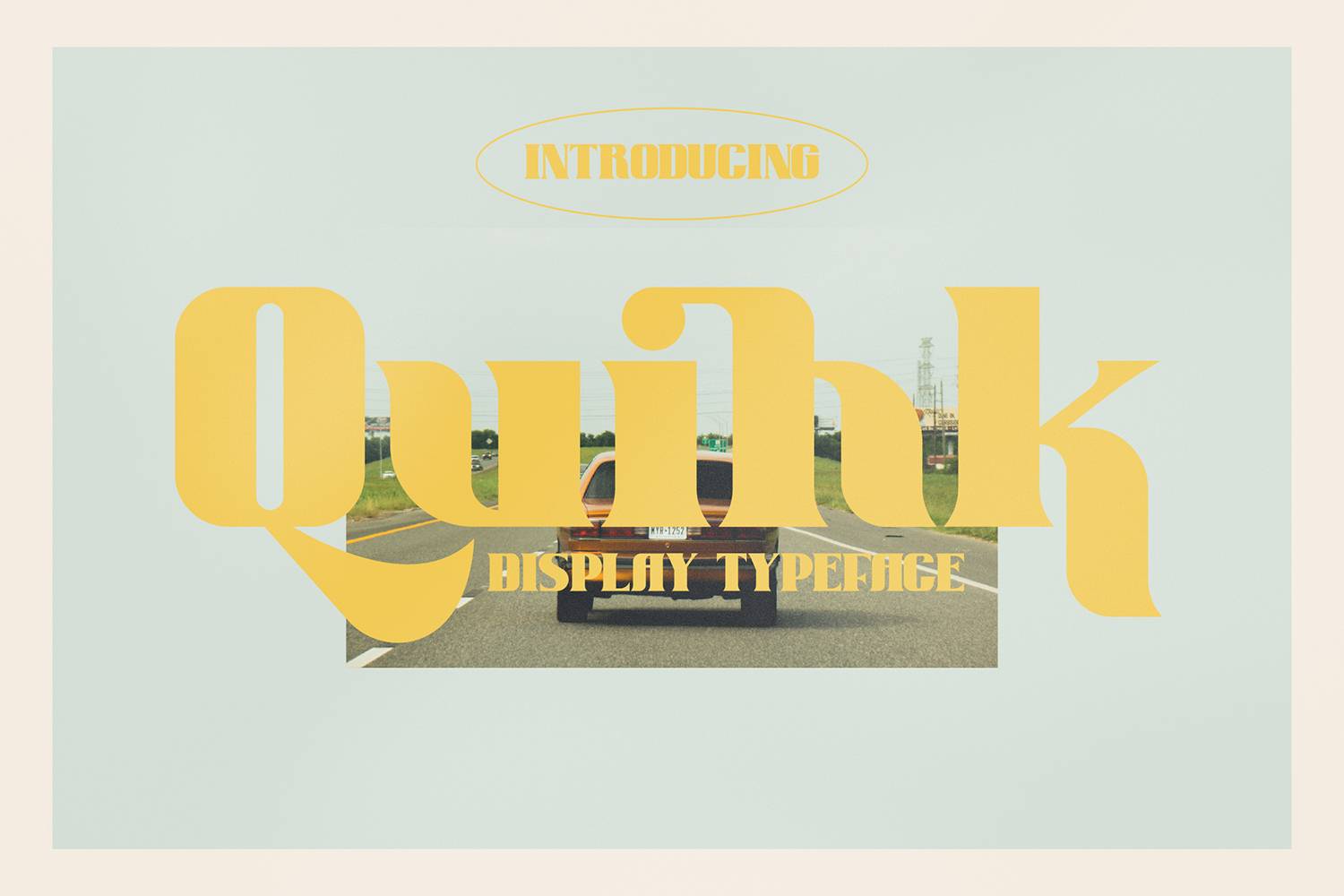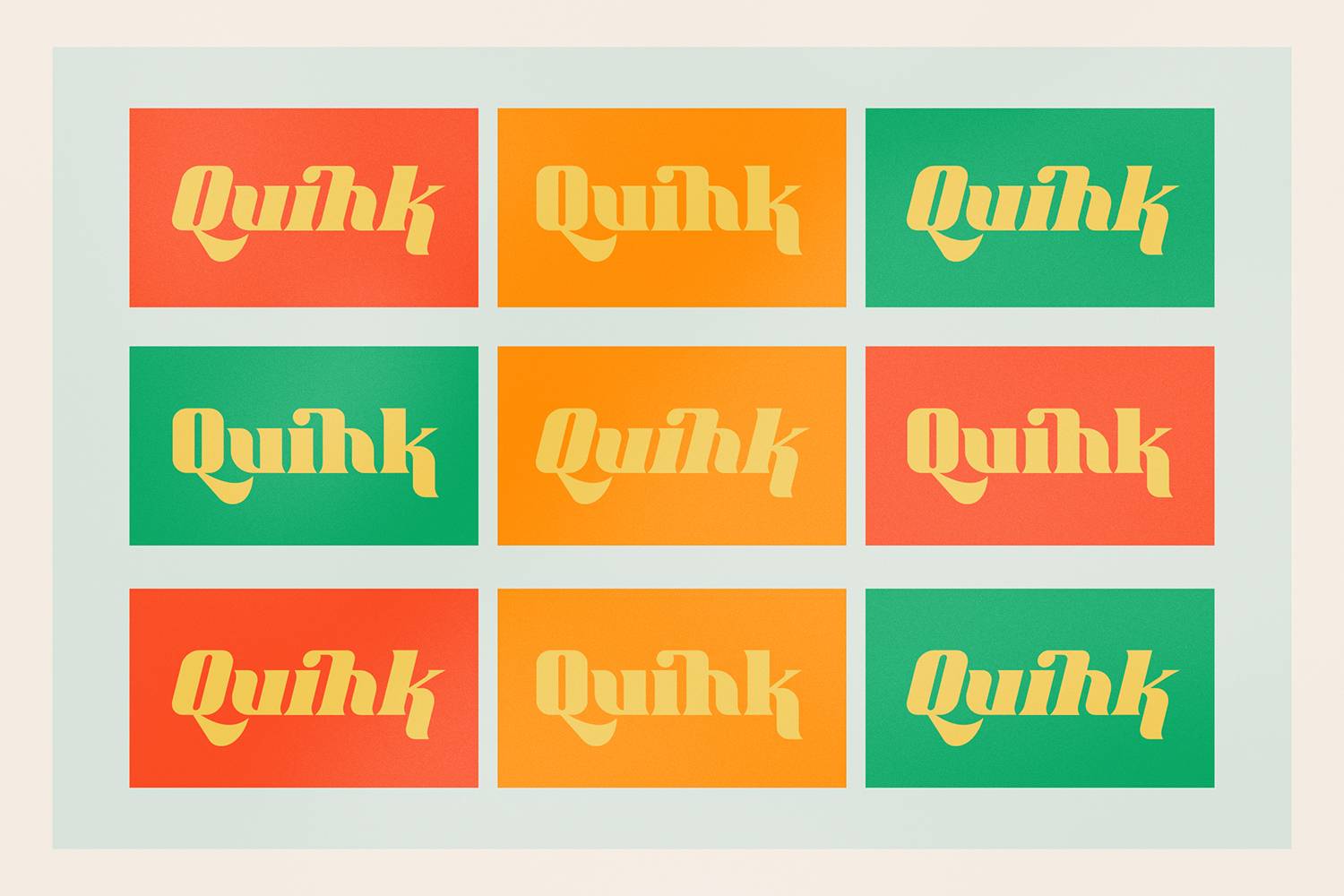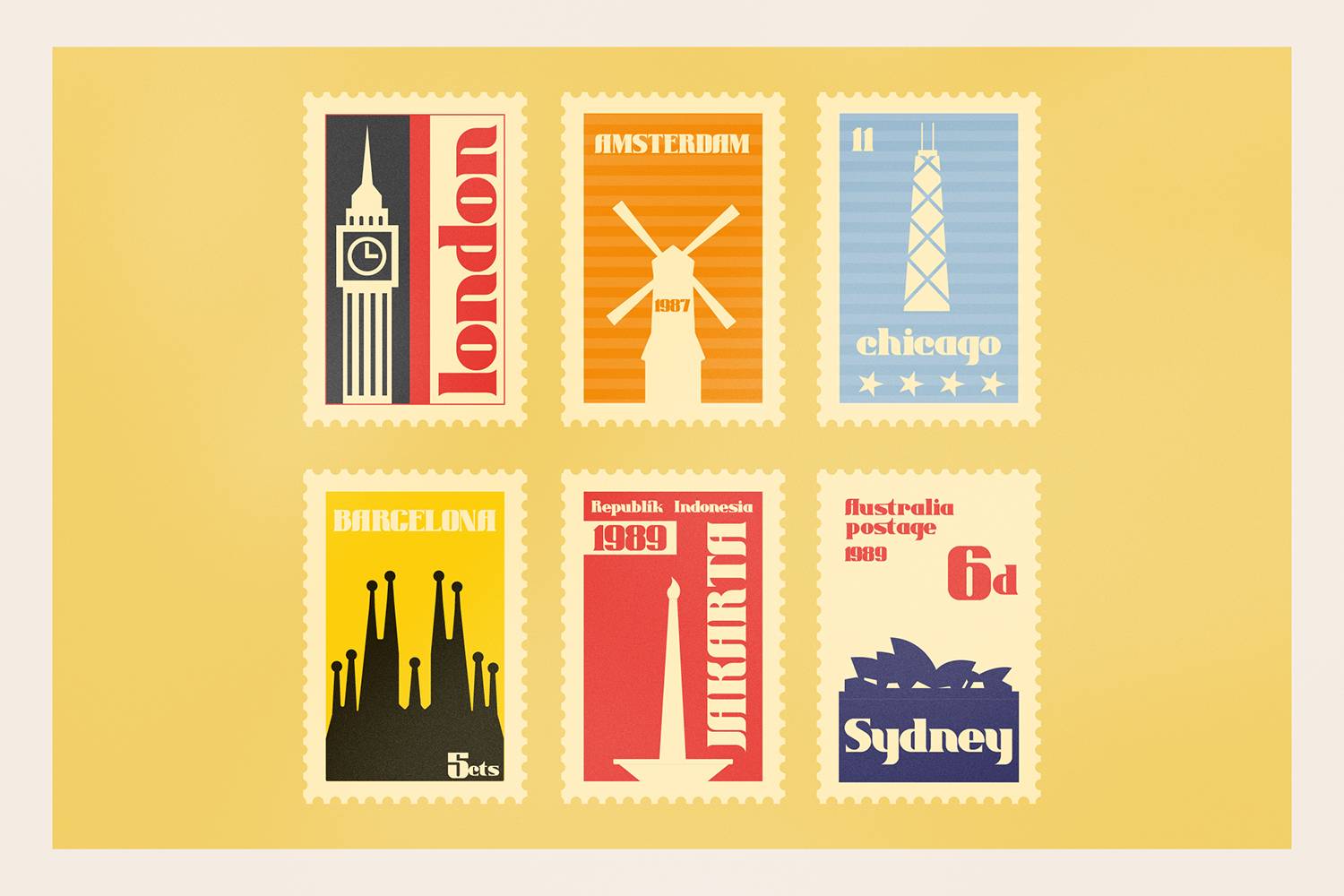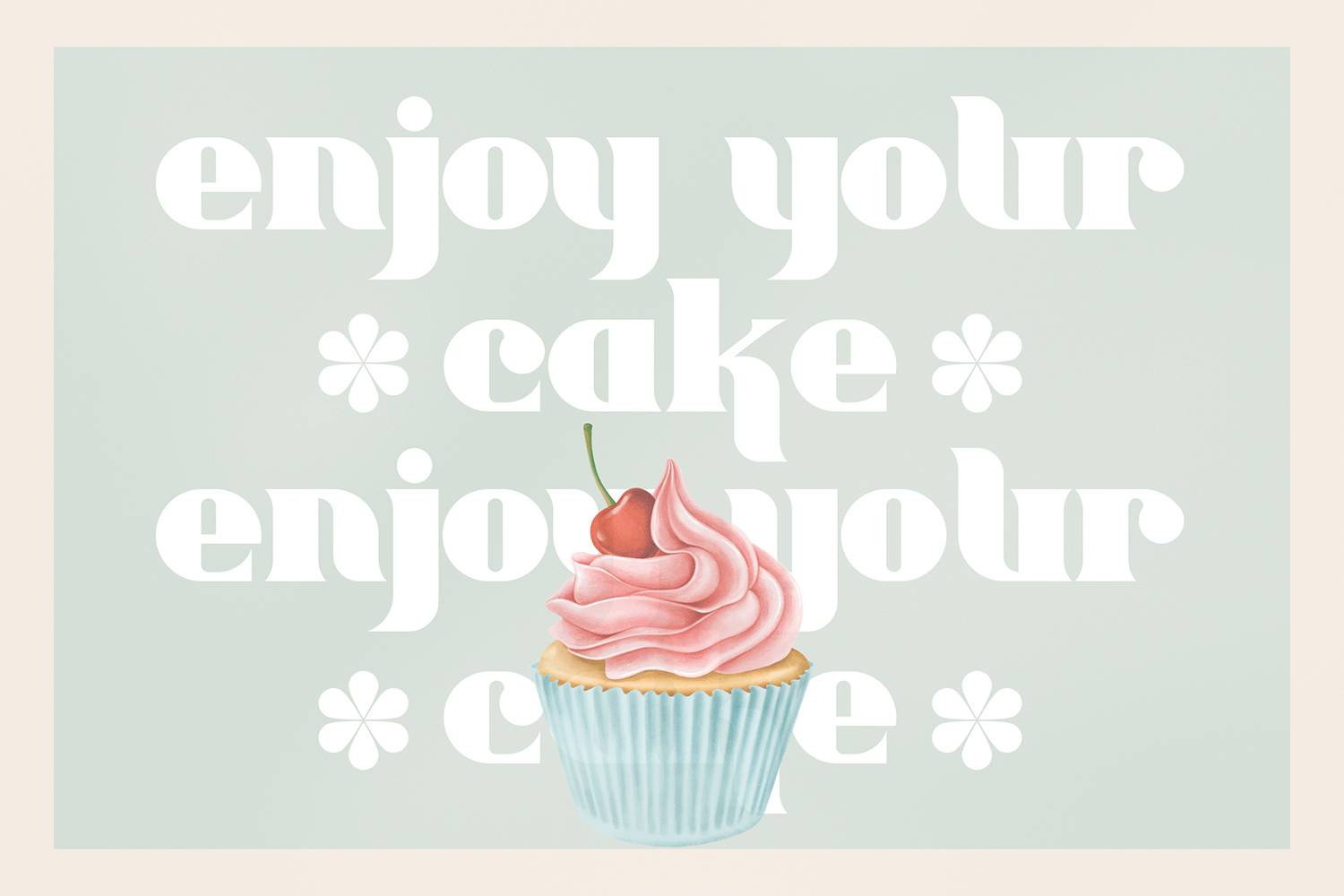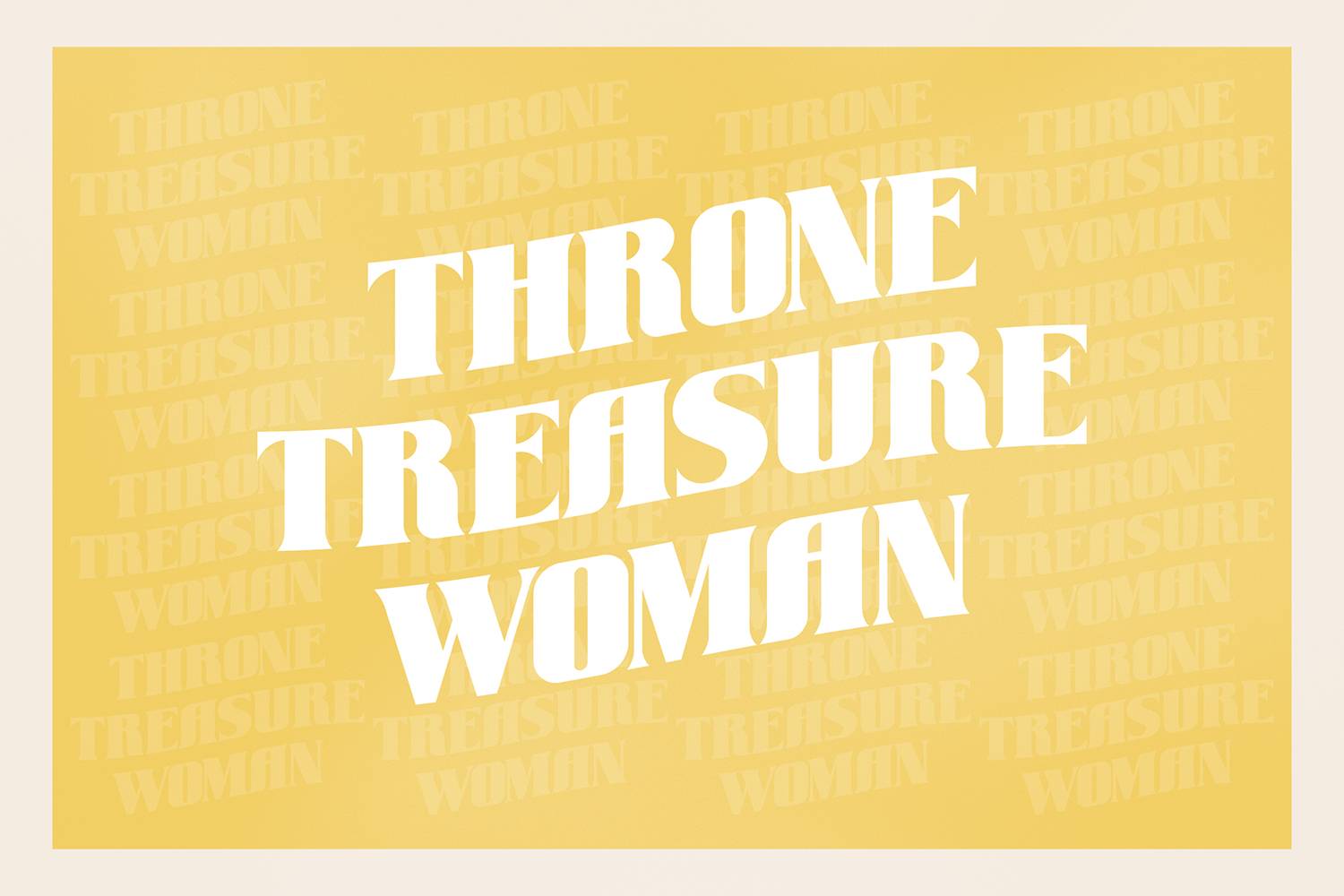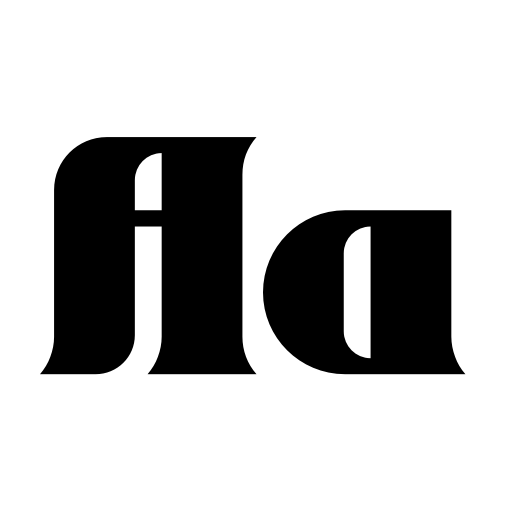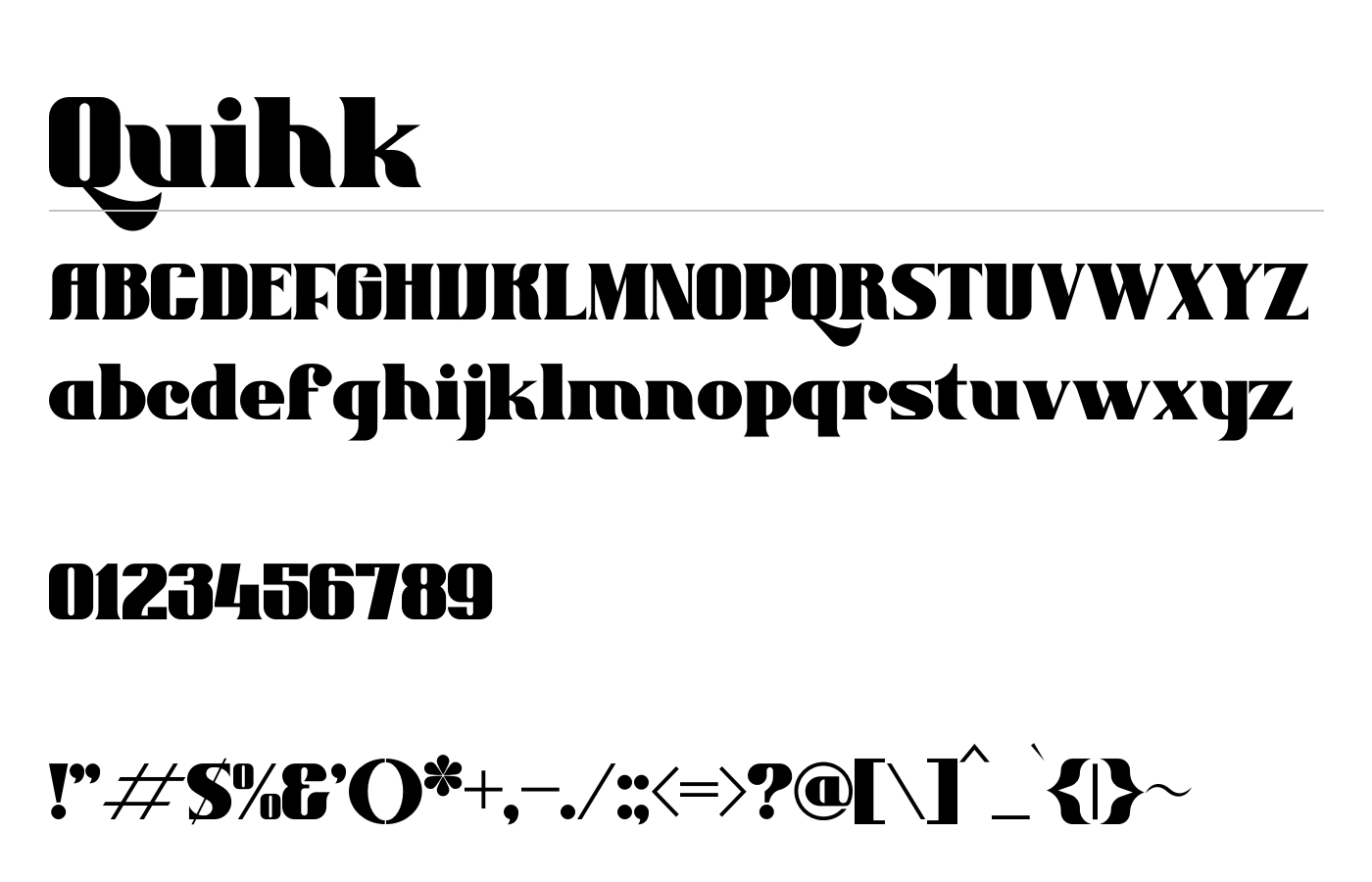
Quihk is a bold, condensed serif font with a strong visual presence, featuring high contrast between thick and thin strokes and unique, stylized letterforms that mix classic serif shapes with modern geometric flair. Its design conveys a dramatic, vintage-inspired personality, making it ideal for eye-catching headlines, logos, and branding that seek to combine elegance with bold impact. This font works especially well in fashion, editorial, and poster designs where a distinctive, memorable style is needed.
Quihk Font
About Quihk Font